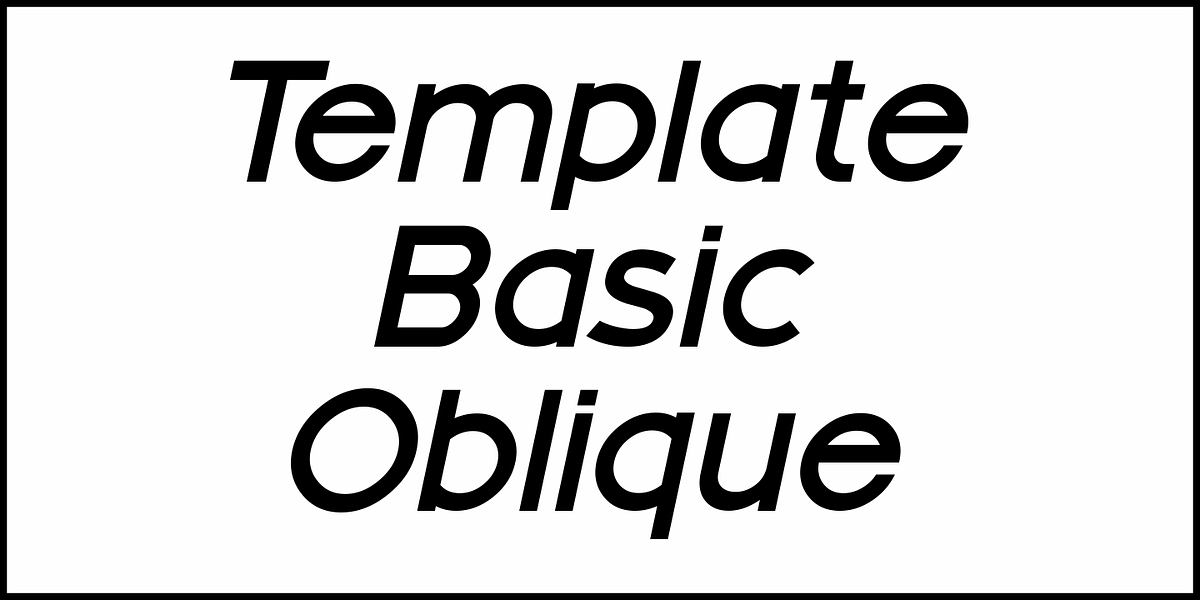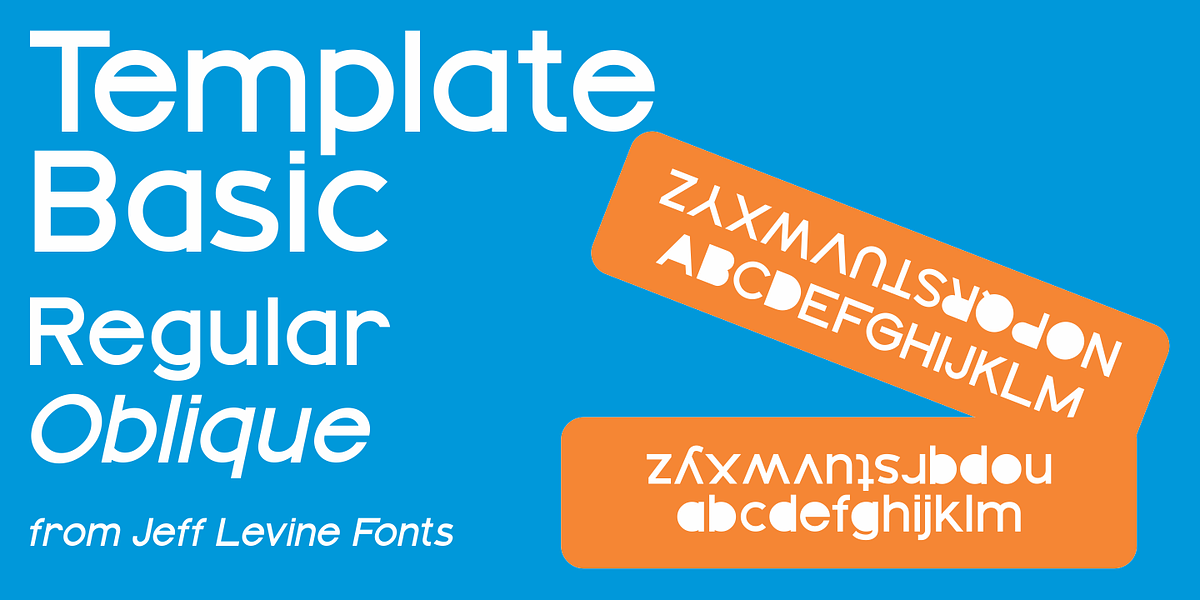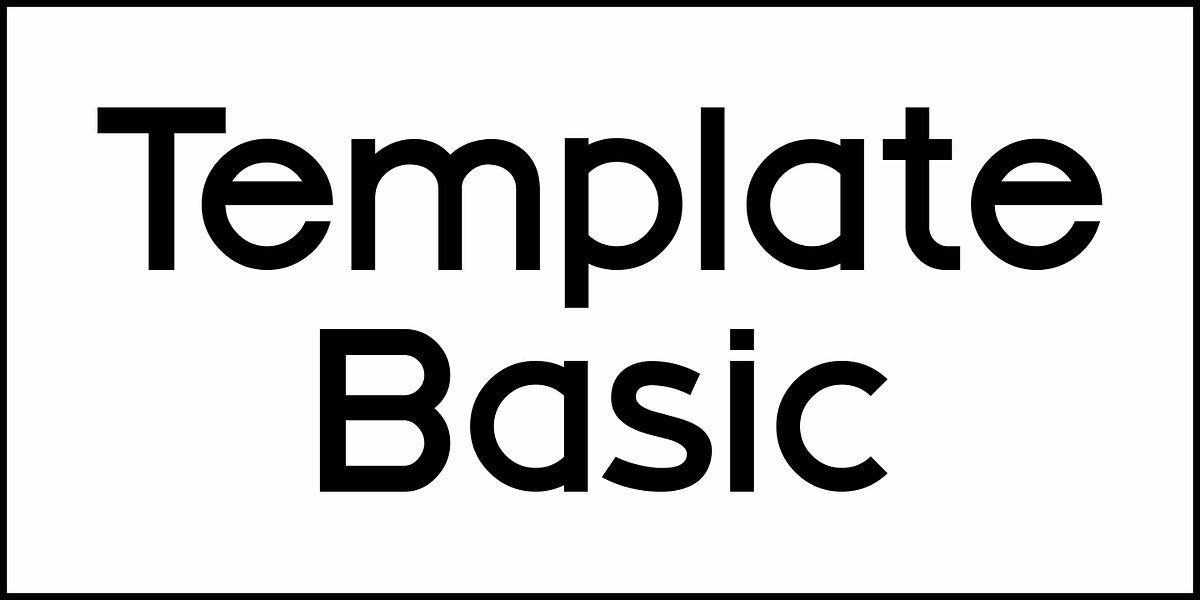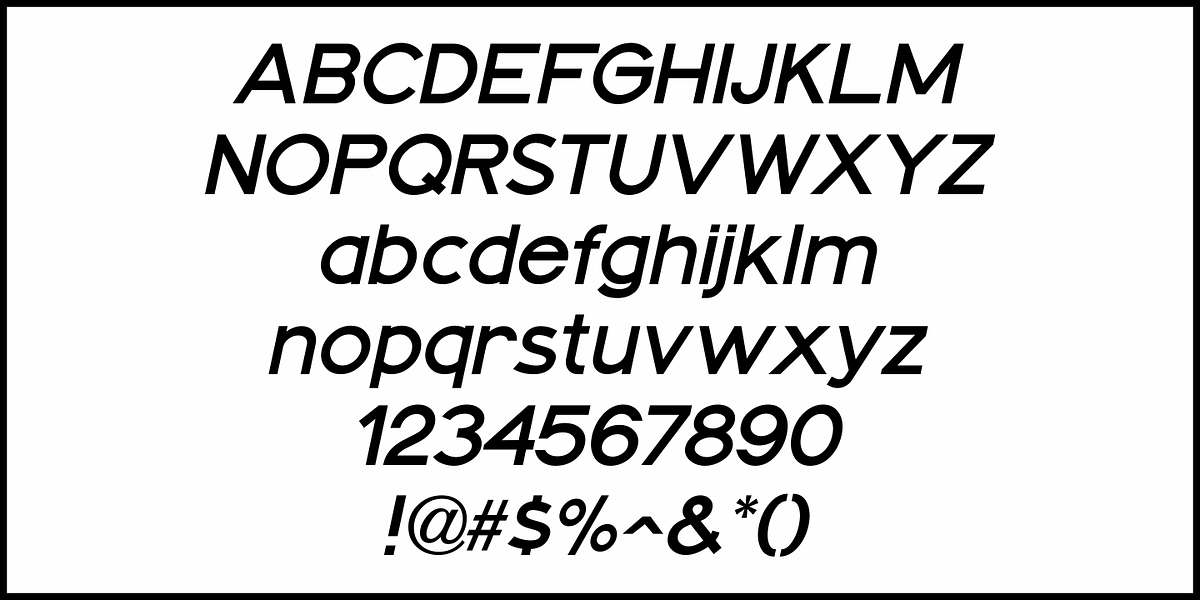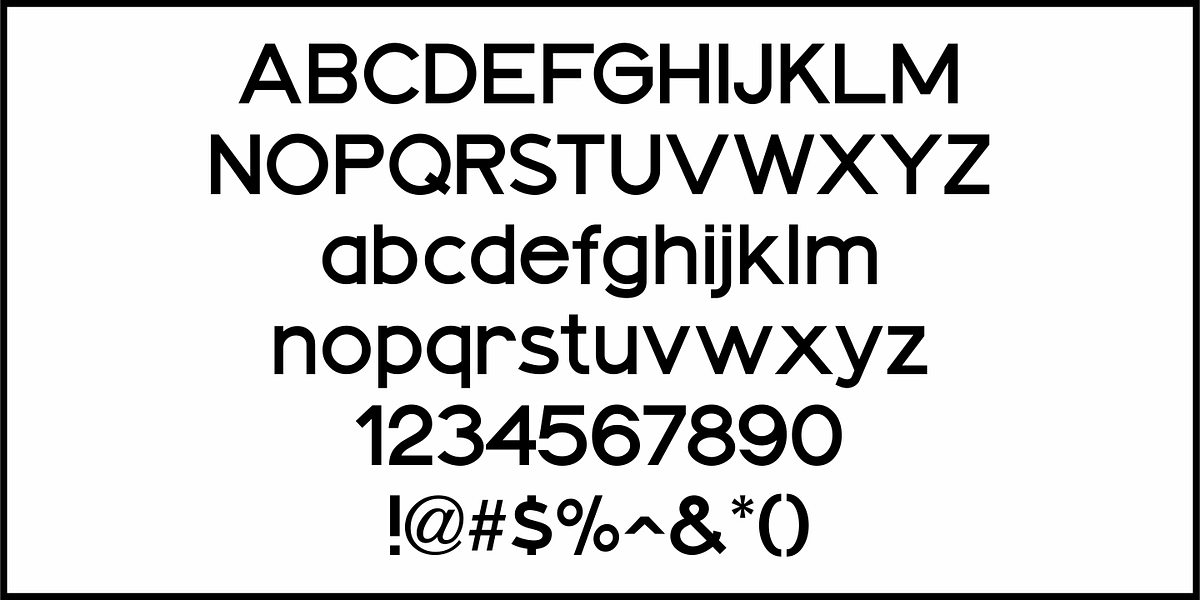
Template Basic JNL
Template Basic JNL was inspired by a simple sans serif lettering template used in the days of ink and technical pen renderings, and is available in both regular and oblique versions.